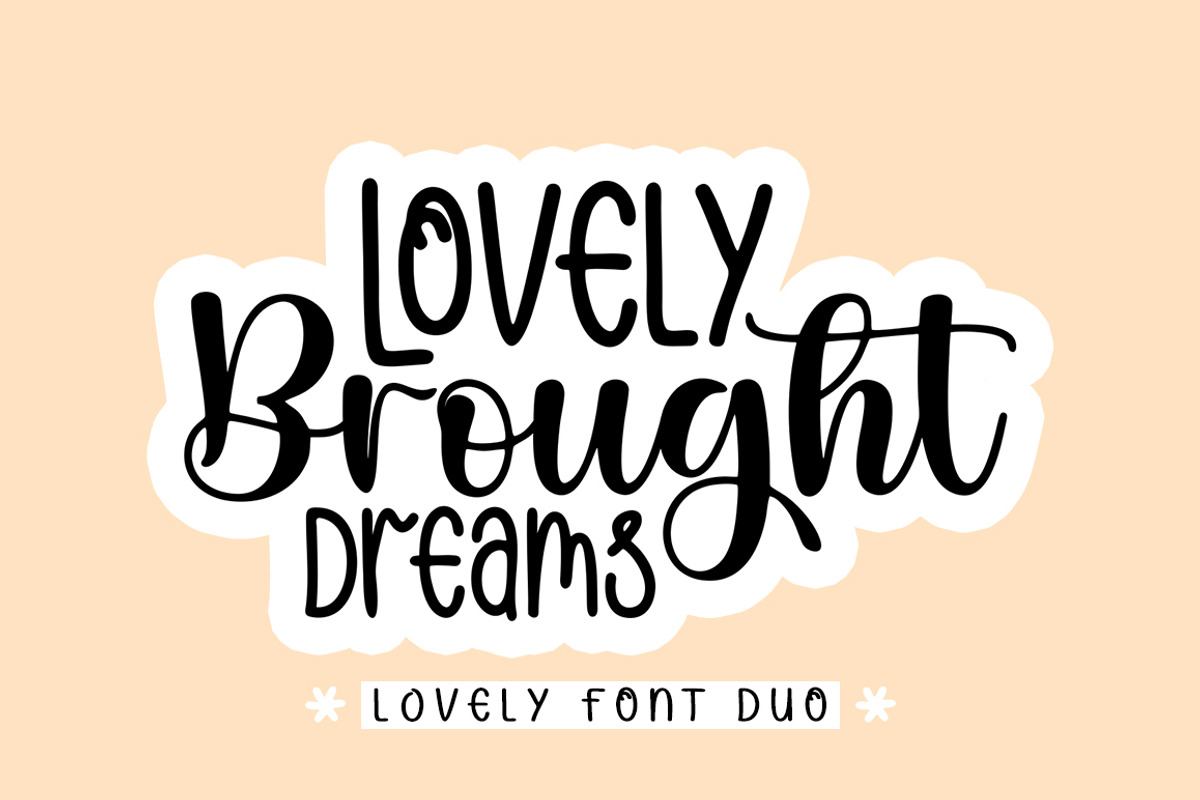
Please note that you must purchase this font for commercial use. You can download Lovely Brought Dreams Font for free, strictly for personal testing purposes only. Lovely Brought Dreams is a charming and elegant script font with a whimsical, handwritten feel. With its flowing curves, stylish swashes, and delicate letterforms, Lovely Brought Dreams Font Free Download is perfect for wedding invitations, greeting cards, branding, logos, social media graphics, and other romantic or feminine-themed designs.
The font’s sophisticated yet approachable style makes it ideal for projects that need a personal, heartfelt touch. It includes uppercase and lowercase letters, numerals, punctuation, and multilingual support, offering flexibility for a variety of creative uses.
Whether you're designing for a wedding, creating heartfelt content, or crafting a whimsical brand identity, Lovely Brought Dreams adds elegance and warmth to your typography.